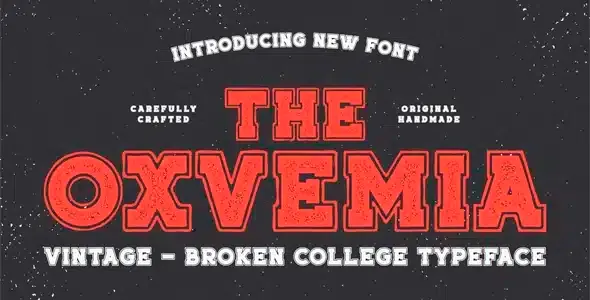
Oxvemia Premium Font
Oxvemia Premium Font is a vintage font with a collegiate-style texture. With bold features that make this font feel strong and sturdy, it will be well suited for formal, rigid, and large brands. With this texture, this font feels even more classic and great for non-formal designs.
A feature that makes this font feel strong and robust, it will be well suited for brands that are formal, rigid, and large. With this texture, this font feels even more classic and great for non-formal designs.
Oxvemia Premium Font
Oxvemia Premium Font is a vintage font with a collegiate-style texture. With bold features that make this font feel strong and sturdy, it will be well suited for formal, rigid, and large brands. With this texture, this font feels even more classic and great for non-formal designs.
A feature that makes this font feel strong and robust, it will be well suited for brands that are formal, rigid, and large. With this texture, this font feels even more classic and great for non-formal designs.